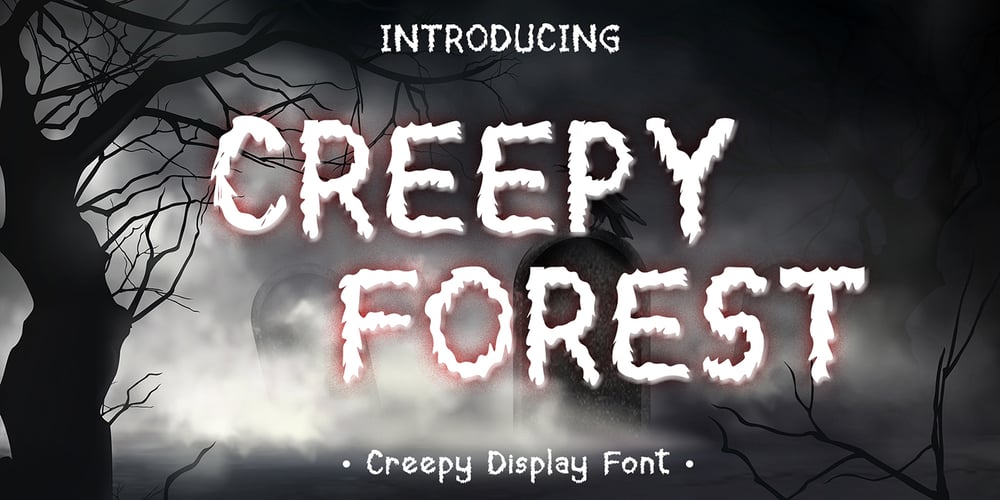
Creepy Forest
Creepy Forest font
Creepy Forest Font Family was designed by Fajar Rachmadi Priyambada and published by DawnCreative.Id. Creepy Forest contains 1 styles and family package options. Creepy Forest is a hand-written font with a spooky style. It comes with a large range of characters including uppercase, lower-case, numerals, punctuation, currency and accents. It will be a great choice for any display project, Halloween card, t-shirt, pillow, crafting, and much more! Thank you for your purchase! We hope you enjoy our font!